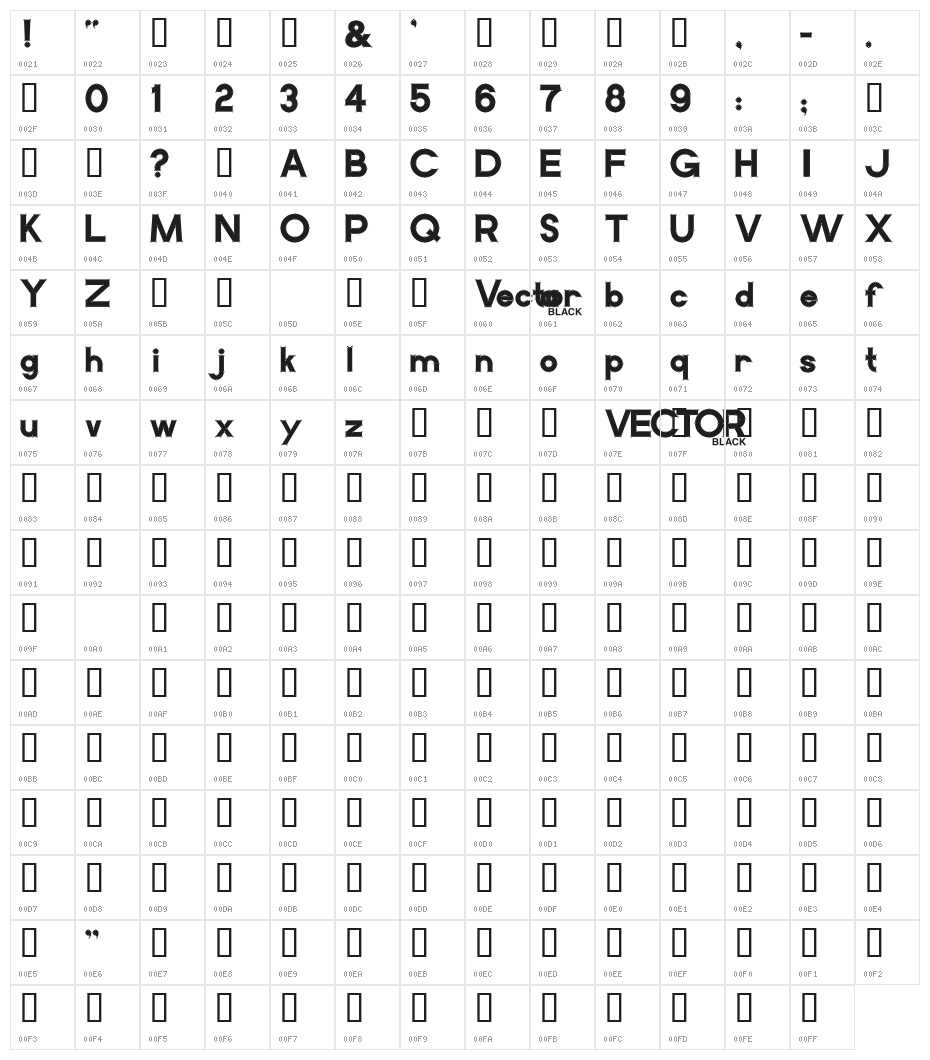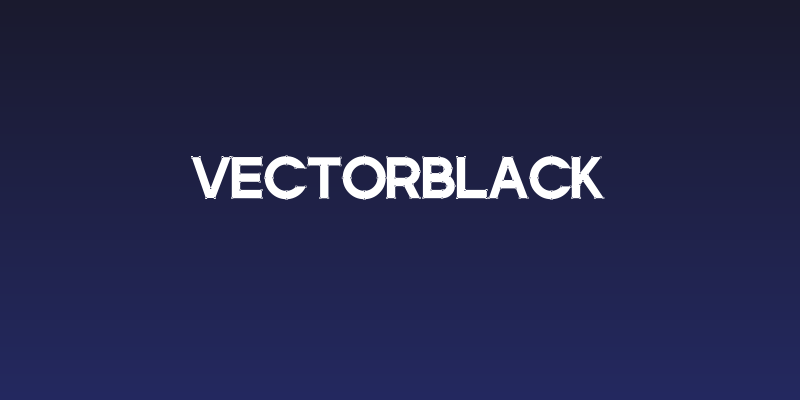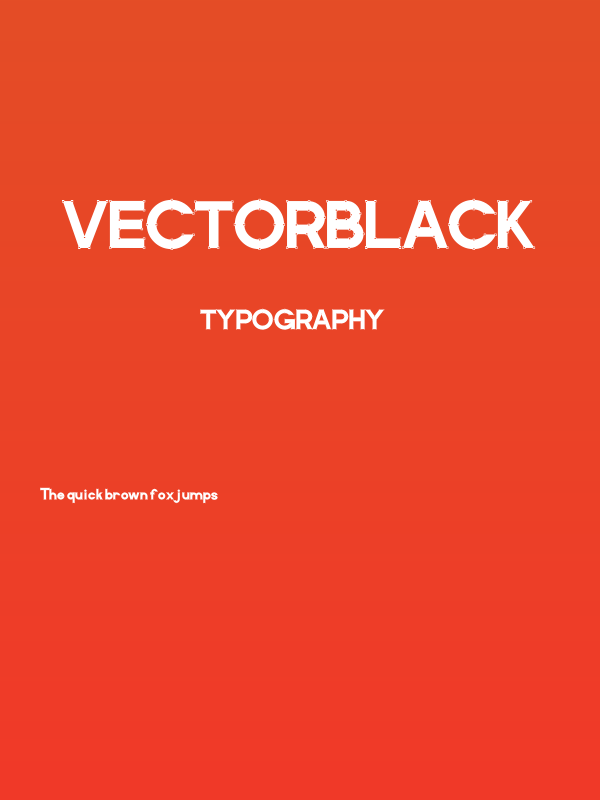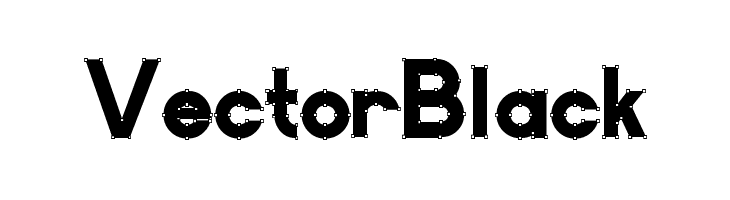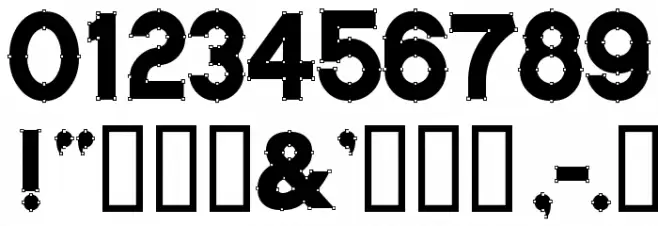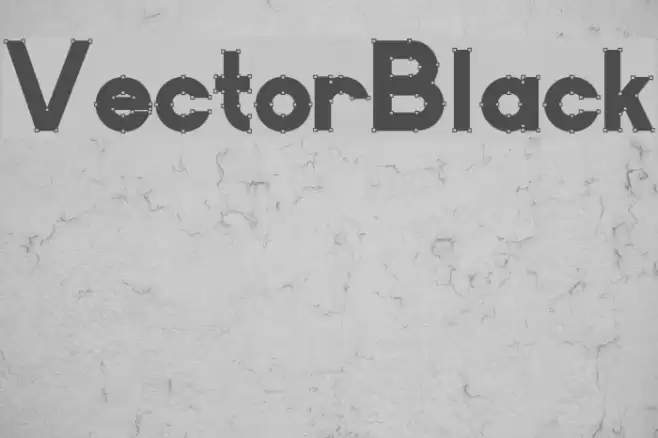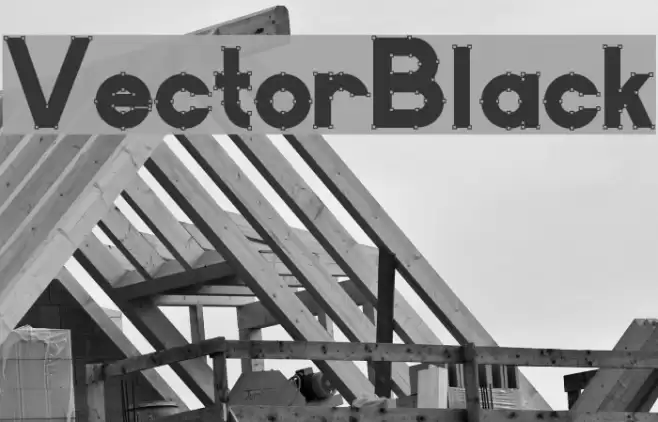
VectorBlack Font
VectorBlack Description
This font features bold, geometric letterforms with a strong presence. The characters are crafted with uniform stroke widths, giving a clean and modern appearance. The uppercase letters are particularly striking, with a consistent height and width that create a balanced look. The lowercase letters maintain the same geometric style, offering a harmonious flow between characters. The numerals are bold and easily readable, making them suitable for various applications. Special characters are included, maintaining the same bold and geometric style, ensuring consistency across all text elements.
| Proposed Projects | Ideal for branding, headlines, posters, and any design requiring a strong, modern typeface. |